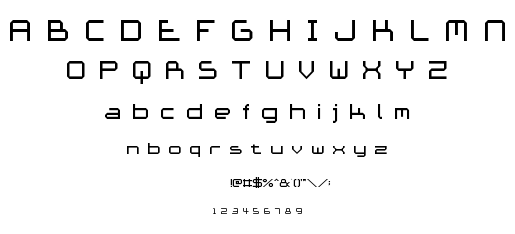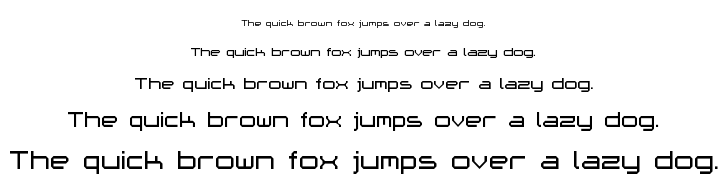
Ace Futurism
Ace Futurism Font
A simple techno font inspired by multiple that already exist. Was initially to be used in a game but the game halted being worked on so I finished up the font and here it is.